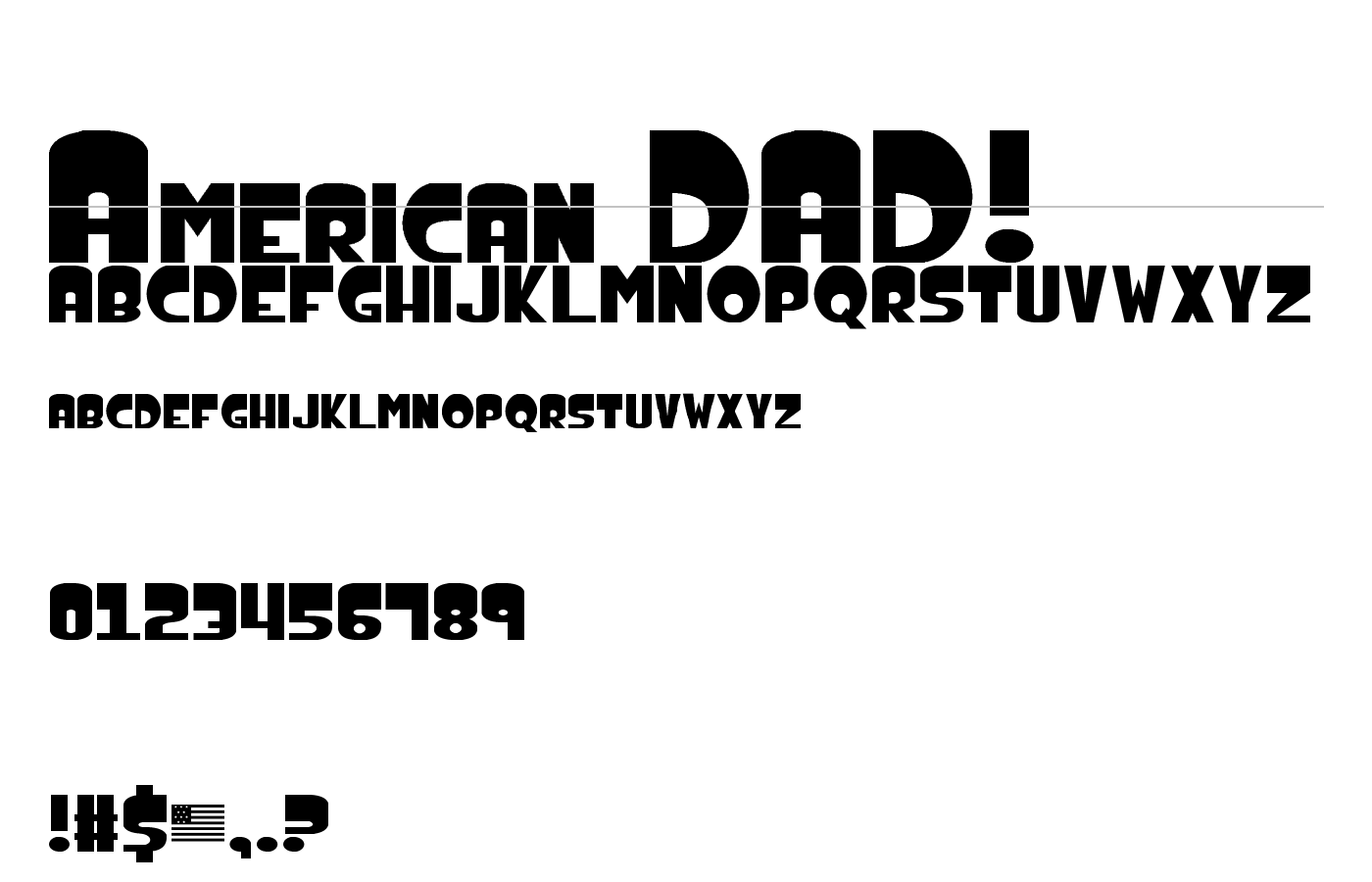
American DAD! is a bold, condensed sans serif font with strong geometric shapes and a solid, playful character. Its heavy weight, uniform stroke width, and tight spacing give it a confident, vintage-inspired feel ideal for headlines and display use. This font works well for attention-grabbing branding, posters, and designs needing a bold, retro touch with a spirited personality.
American DAD! Font